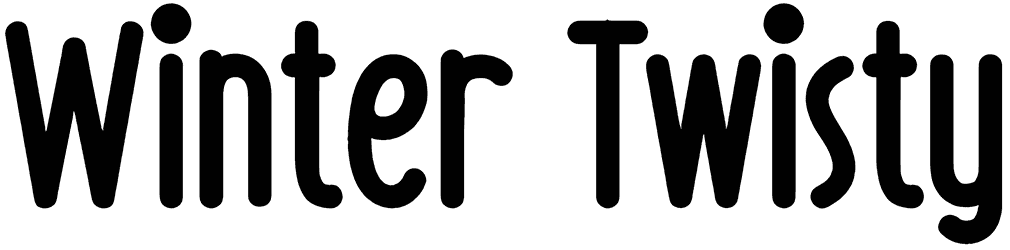
Winter Twisty Font
Would you like to give a sweet and realistic style to your words? This decision will amp up your modern design, and the Winter Twisty font is one of your options. This handwritten font has cute letters, but consider that it doesn’t support numbers and punctuation marks. Create a unique design like a beautiful t-shirt and show off your creativity.